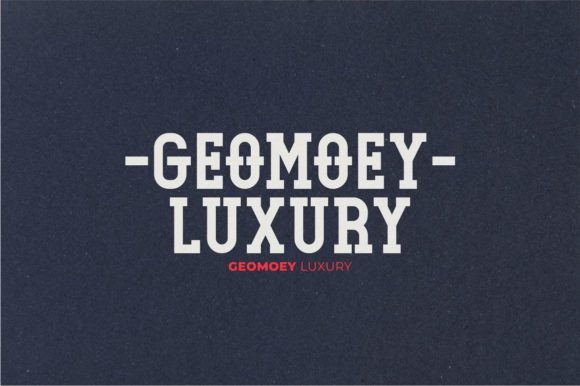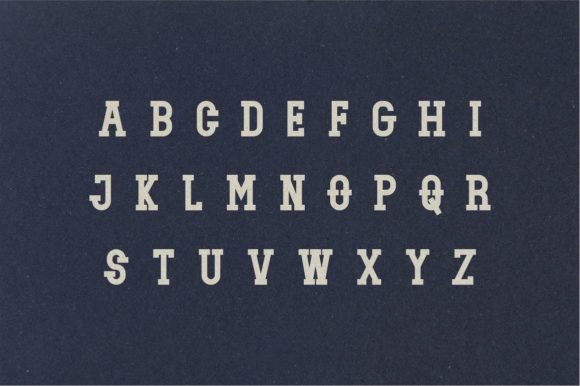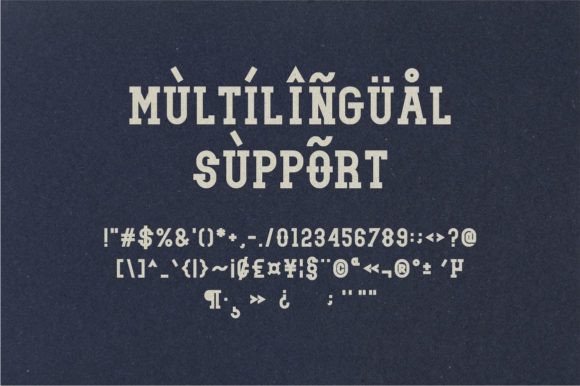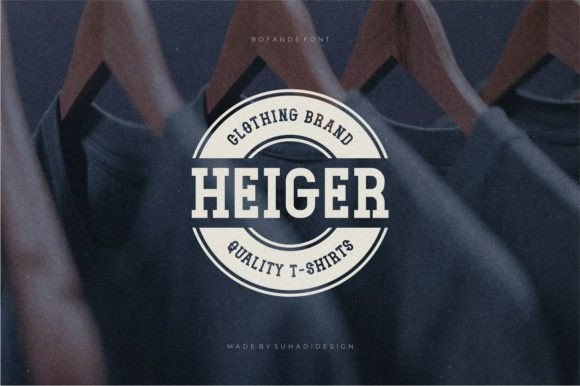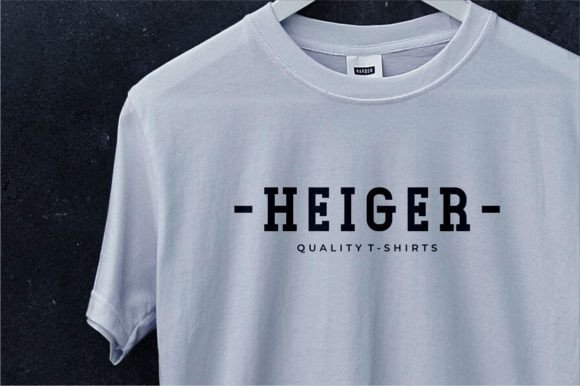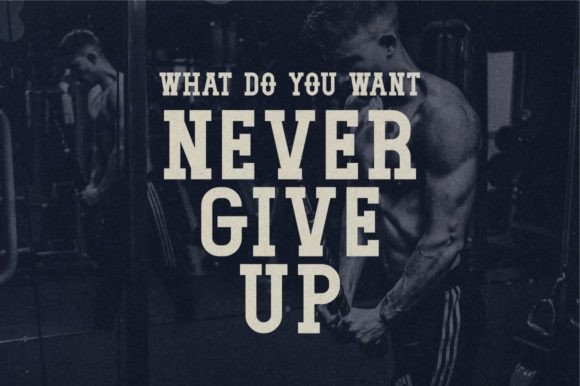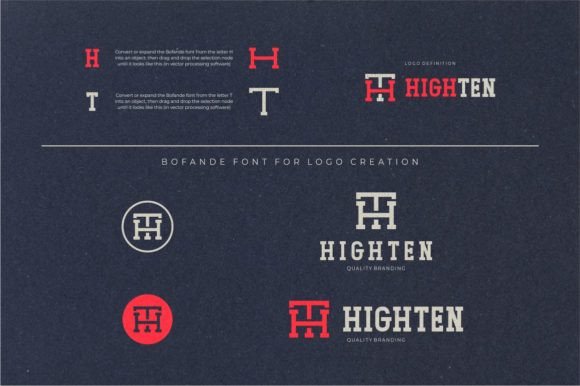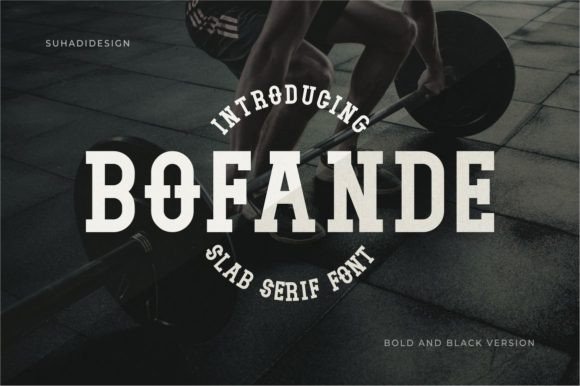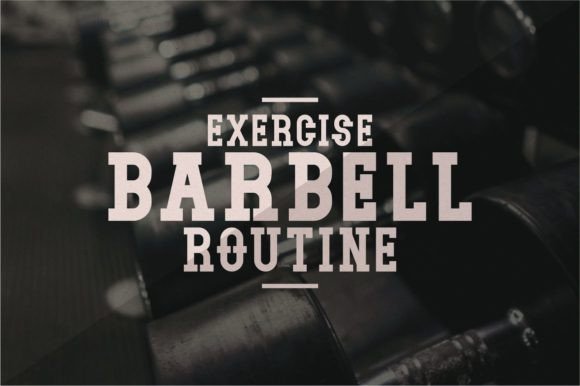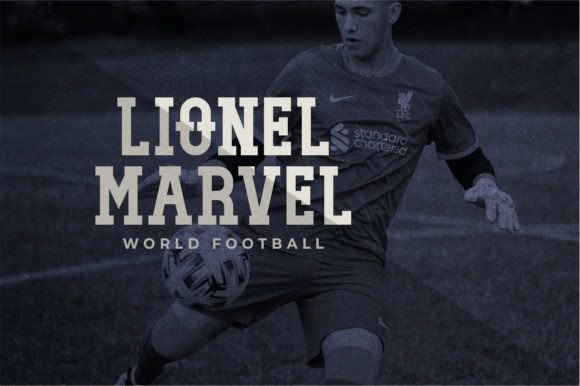
Bofande
Bofande: A Bold and Assertive Slab Serif Font
Bofande is a bold and assertive slab serif font. Incredibly versatile, this font fits a wide pool of designs, elevating them to the highest levels. Add this font to your favorite creative ideas and notice how it makes them come alive!
Key Features of Bofande
• Bold Design: Offers a strong and confident look suitable for impactful designs.
• Slab Serif Structure: Features distinctive serifs that add character and readability.
• Versatile Application: Ideal for a wide range of design projects.
• Assertive Appearance: Brings a powerful presence to any design it’s used in.
Ideal Uses for Bofande
Bofande’s unique characteristics make it particularly well-suited for:
When incorporating Bofande into your designs, consider these tips:
• Use for headlines or short blocks of text to showcase its bold style.
• Utilize its assertive appearance to create designs that command attention.
Bofande is an excellent choice for designers looking to add a bold and assertive slab serif font to their typographic toolkit. Its ability to elevate designs to the highest levels makes it stand out in the world of typography. Whether you’re working on branding projects, creating impactful advertisements, or developing content that requires a strong visual presence, Bofande offers the perfect blend of boldness and versatility.
Furthermore, Bofande’s unique design allows it to shine in various contexts. From minimalist layouts to more complex designs that need a powerful focal point, this font can bring your creative ideas to life. Its bold yet readable appearance works particularly well in designs that require a confident and engaging mood.
In conclusion, Bofande is a font that truly captures the essence of boldness and impact in typography. Its ability to work well across a wide pool of designs showcases its versatility. For those looking to add a touch of assertive charm to their work, Bofande can enhance themed creations with its distinctive style. It’s the perfect choice for designers seeking to make a strong, stylish impact across a wide range of creative projects.